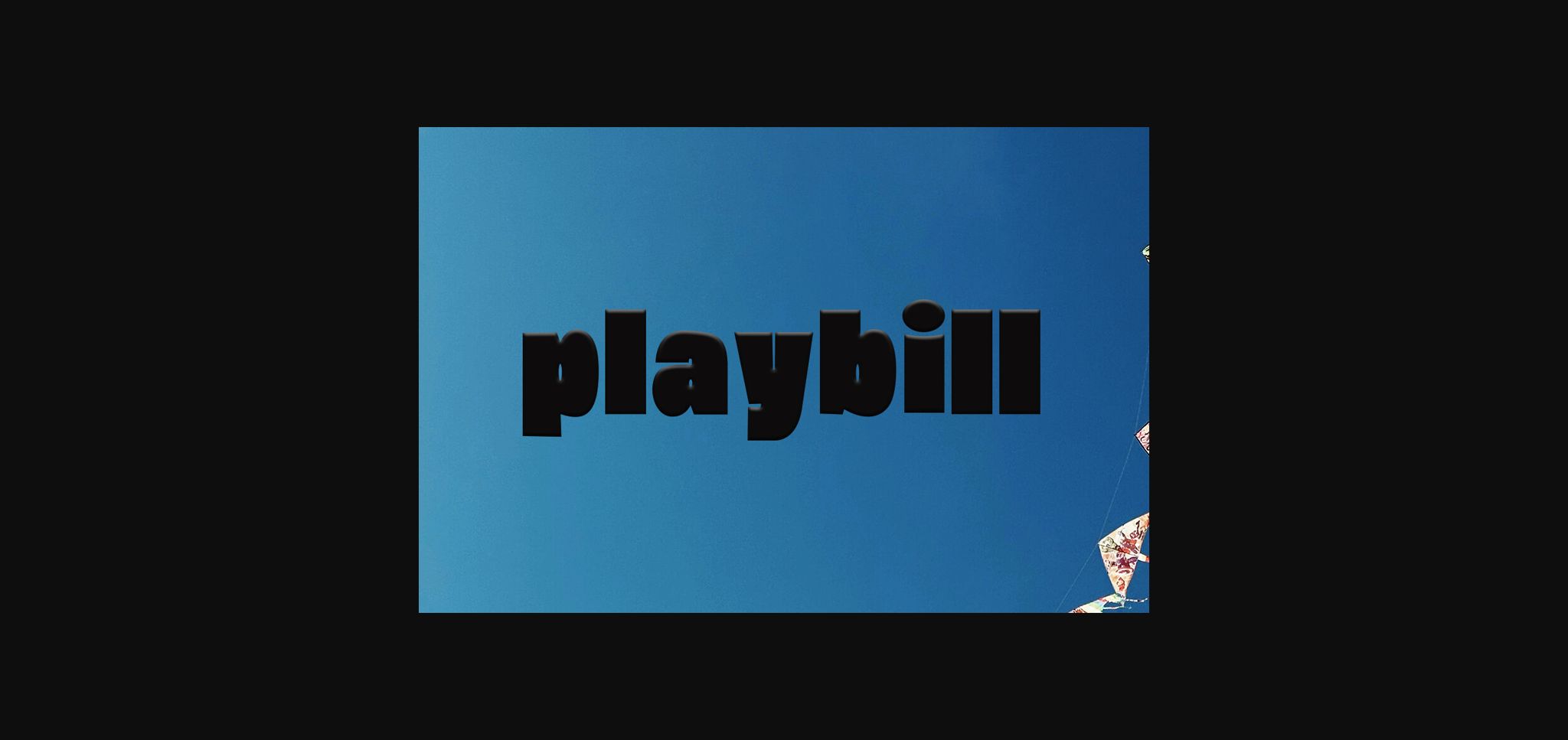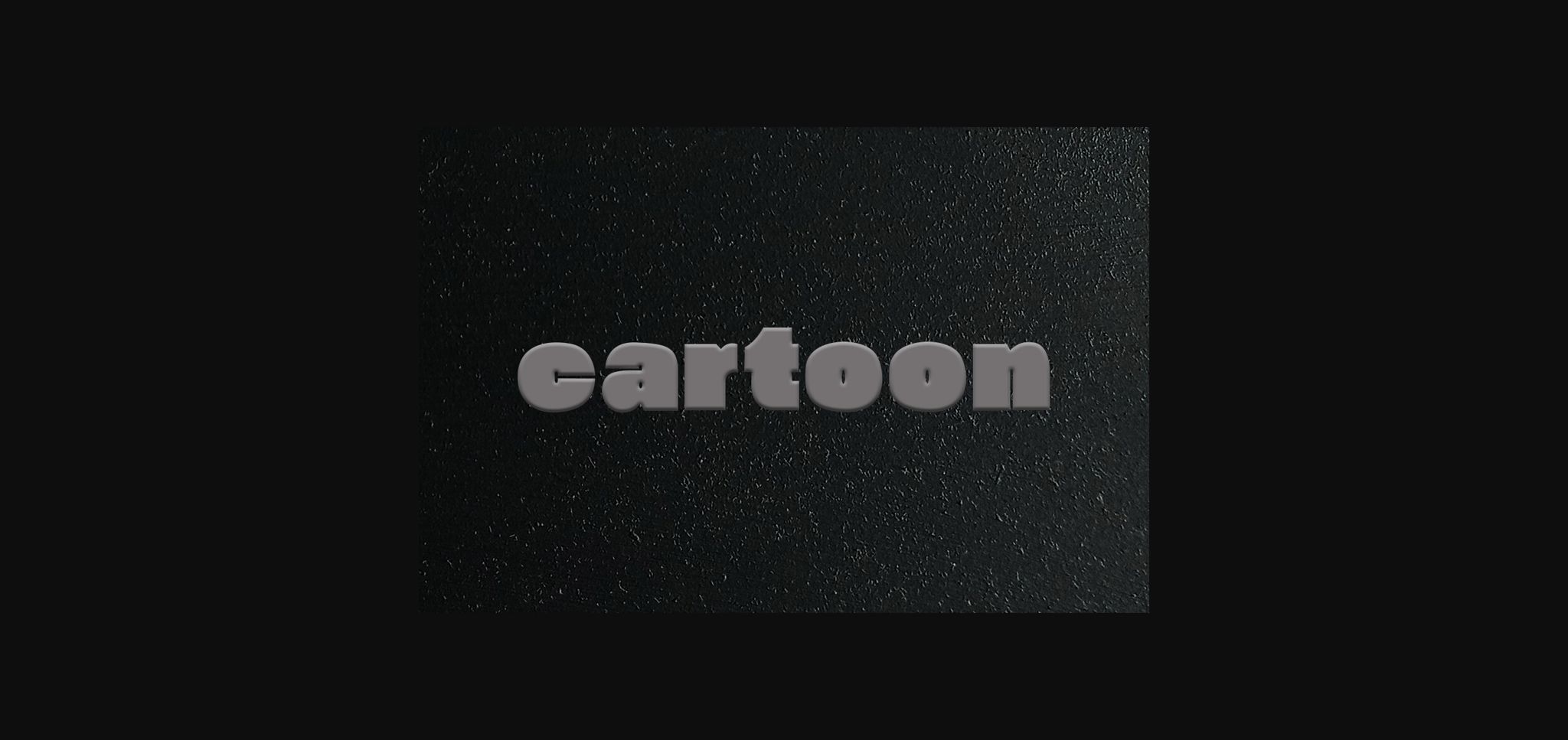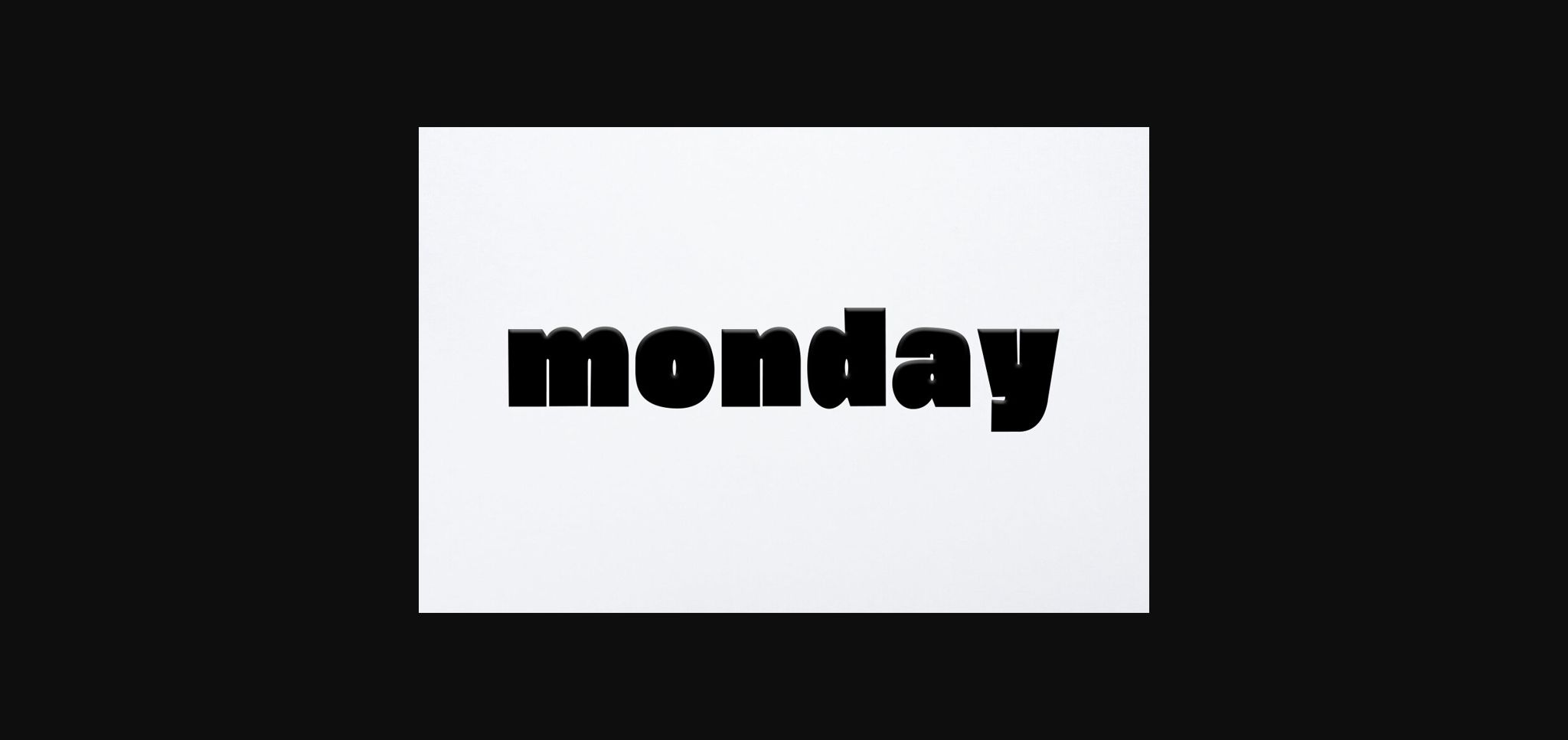
About Playbill Font
Introducing condensed sans serif font, Playbill. It is a modern and simple font, best used as a display for headings, logos, branding, magazines, product packaging, and invitations.